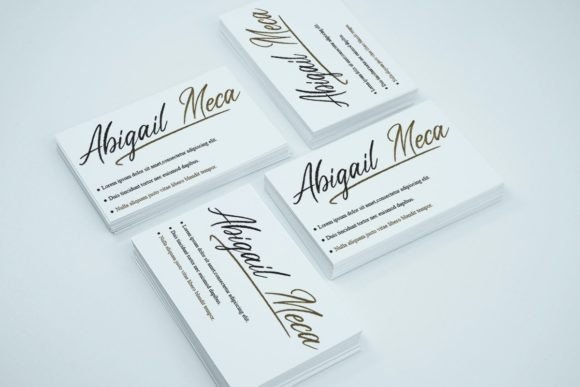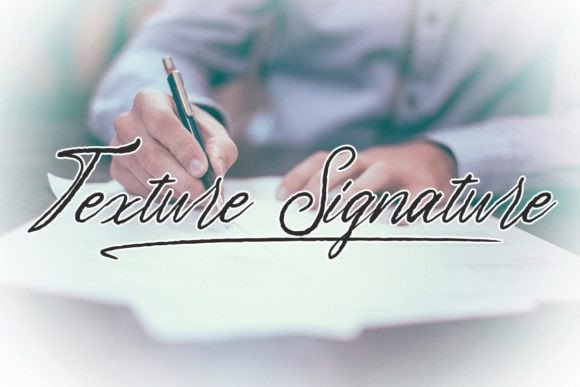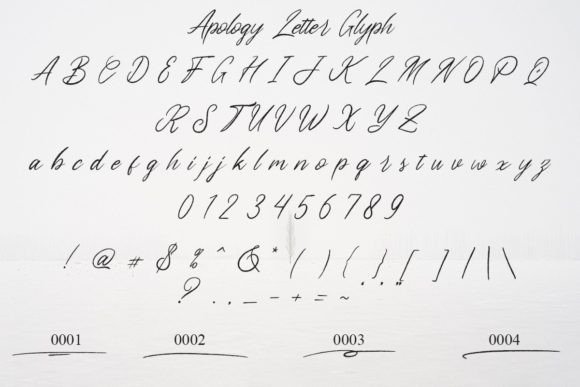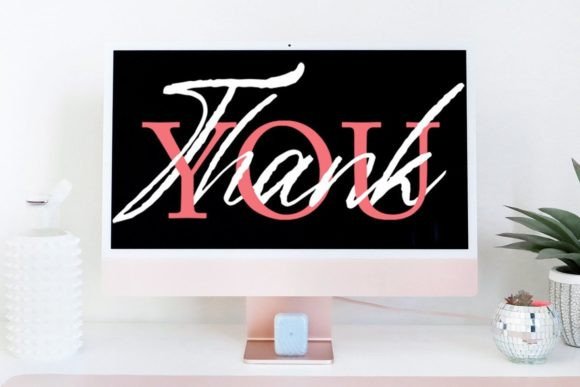
The Perfect Font for a Heartfelt Touch
Have you ever stared at a blank page, trying to craft the perfect apology or thank you message? The words are pouring out of your heart, but the design is what’s holding you back. You want your message to shine, to convey the sincerity and emotion behind it.
That’s where the Apology Letter Font comes in – a stunning signature font with a modern texture that adds a handwritten touch to any design. Whether you’re creating wedding invitations, thank you cards, or quotes, this font is sure to make your message stand out. As a designer, you know how valuable it is to have the right tools at your fingertips, and the Apology Letter Font is an absolute gem.
Key Features of Apology Letter Font
- Font Family: The Apology Letter Font is a unique, hand-drawn font family that includes 6 different fonts, each with its own distinct style and feel.
- Unique Characteristics: The Apology Letter Font features a distressed, handwritten feel with subtle imperfections and variations, giving it a personal and emotive touch.
- Characters and Glyphs: Includes a wide range of characters and glyphs, including Latin, Cyrillic, and Greek alphabets, as well as punctuation and special characters.
Designer Review: Apology Letter Font
Overall, I think the Apology Letter Font is a great effort to create a font that conveys sincerity and remorse. Here are some things that work well:
- ✨ Elegant and cursive script: The font has a beautiful, flowing design that makes it perfect for writing apology letters or any other document that requires a touch of elegance.
- ✨ Wide character set: The font has a wide range of characters, including uppercase and lowercase letters, numbers, and punctuation marks, making it suitable for everyday use.
- ✨ Customizable: The font can be customized to fit your specific needs, including font size, color, and spacing.
- ⚠️ Limited language support: The font currently only supports a limited number of languages, which may be a concern for users who need to write in multiple languages.
- ⚠️ Not ideal for digital use: The font is designed for print use and may not be suitable for digital applications such as websites or social media.
Overall, I think the Apology Letter Font is a great option for users who need a font that conveys sincerity and remorse. While it has some limitations, it’s a great choice for print use and can be customized to fit your specific needs.
Use the Apology Letter Font in conjunction with a simple, yet elegant design to convey sincerity and remorse.
Consider adding a personal touch, such as a handwritten signature or a custom illustration, to make the apology letter more meaningful.
The Apology Letter Font is commonly used in:
- Personal apologies, such as a letter to